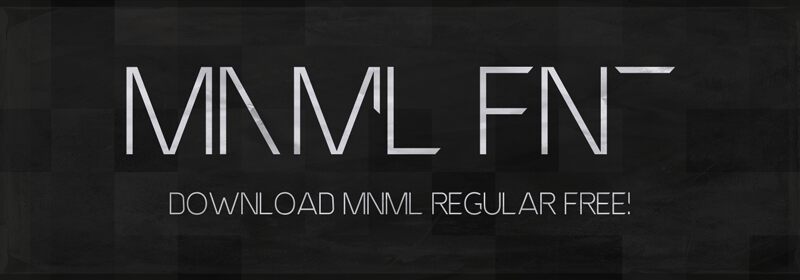
MNML FNT is a unique capital font that was constructed specifically for use for record labels, music industry graphics, or anything creative material that needs a unique spin. The uppercase is a complete, stylized sans-serif font, while the lower case consists of the uppercase letters deconstructed. Add deconstructed accents to your titles, or go all out in a deconstructed, post-apocalyptic frenzy.
MNML FNT